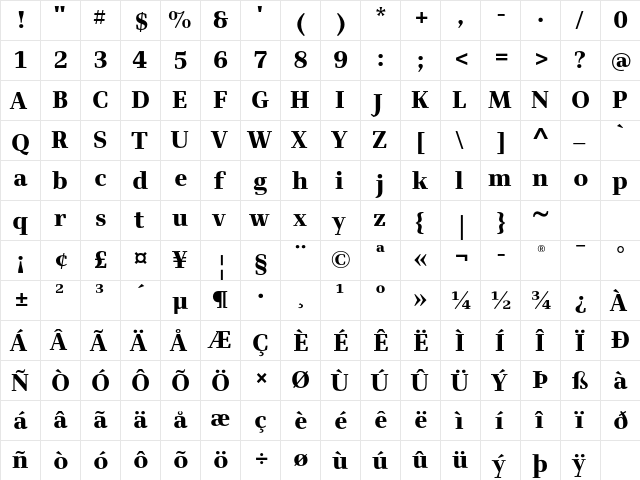
Alfon MD Heavy
| Foundry | Terminal Design Inc. |
| Designer | James Montalbano |
Design Context for Alfon MD Typeface
Alfon MD takes a measured approach to typography — its balanced proportions and neutral character make it a reliable workhorse for both digital and print work.